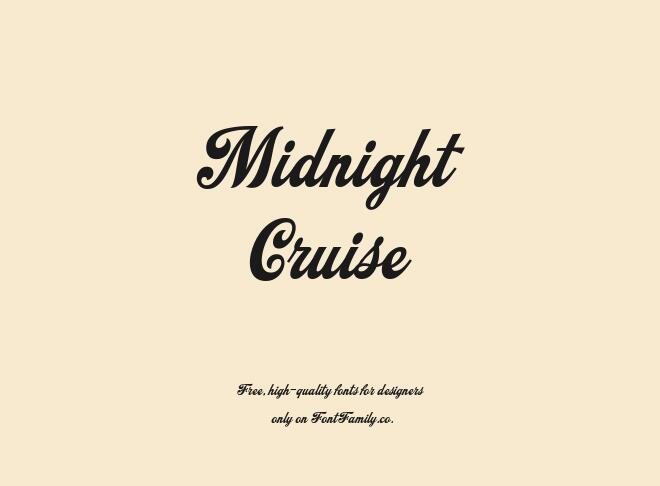
Midnight Cruise Font
Midnight Cruise Font is a stunning handwritten script typeface with a retro twist. A perfect blend of modern elegance and classic style, this font is designed to elevate your creative projects. The unique combination of fluid, handwritten curves and retro-inspired embellishments make it an eye-catching choice for logo design, branding, wedding invitations, and social media graphics. Midnight Cruise Font is reminiscent of classic cursive scripts but with a more playful, casual vibe. It's a versatile font that can be used in a variety of design contexts, from formal to fun. Its strong visual impact and distinctive style set it apart from other script fonts, making it a must-have for every designer's toolkit. Download and use Midnight Cruise Font to add a touch of charm and personality to your designs.